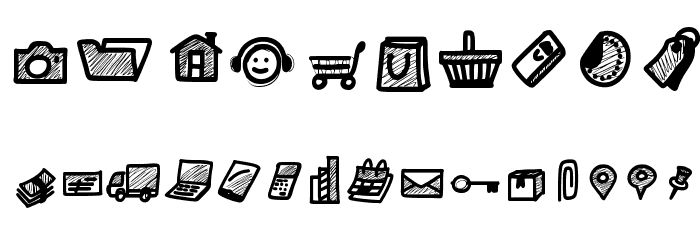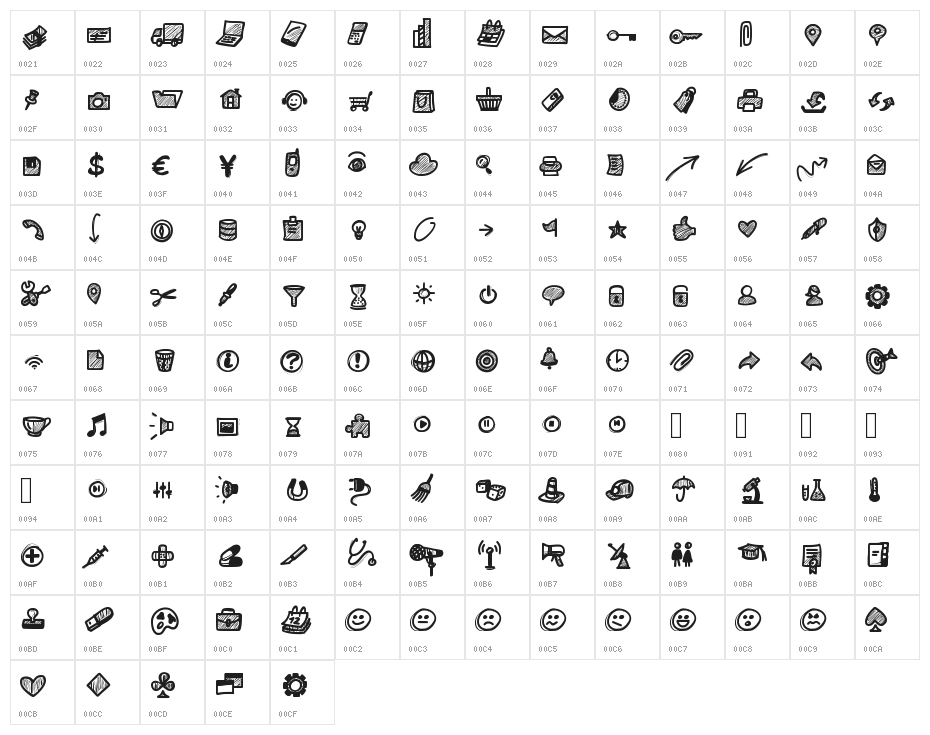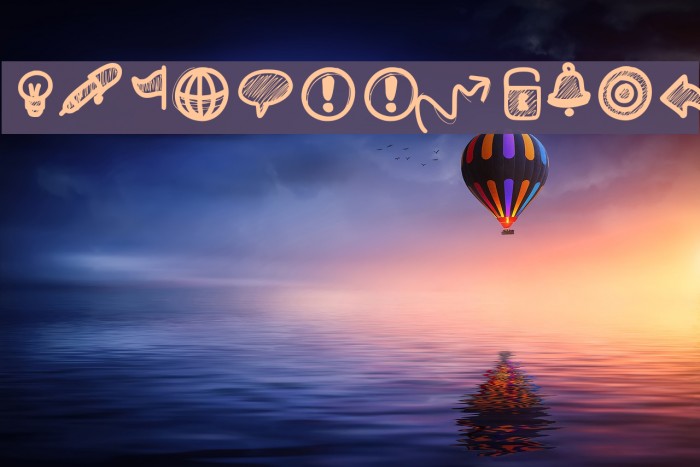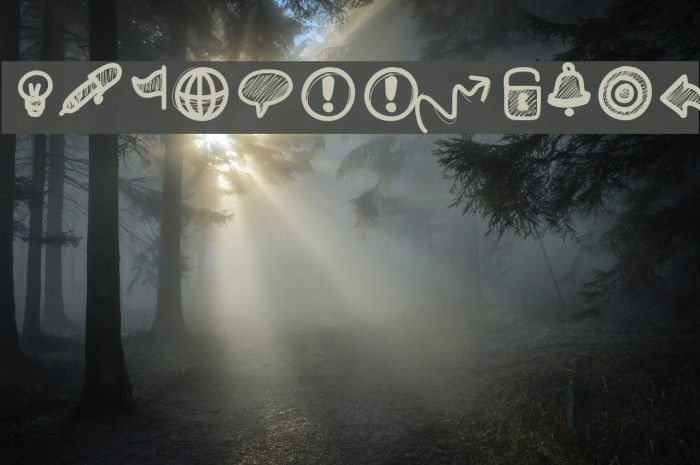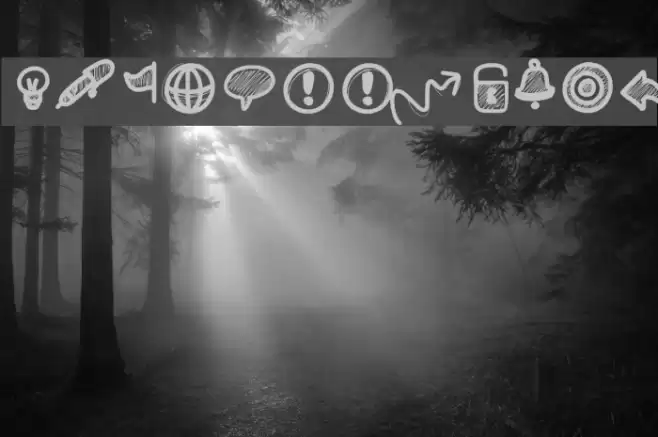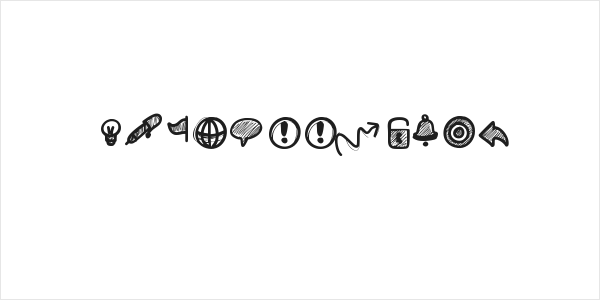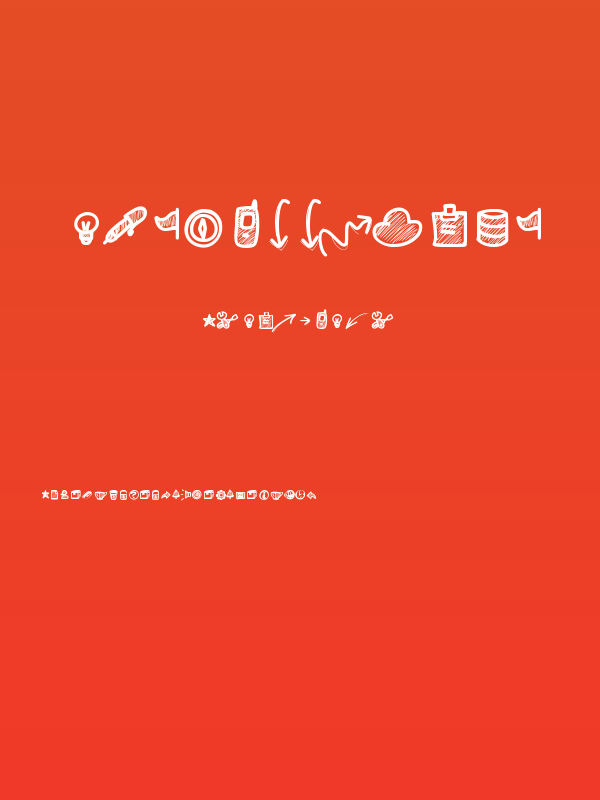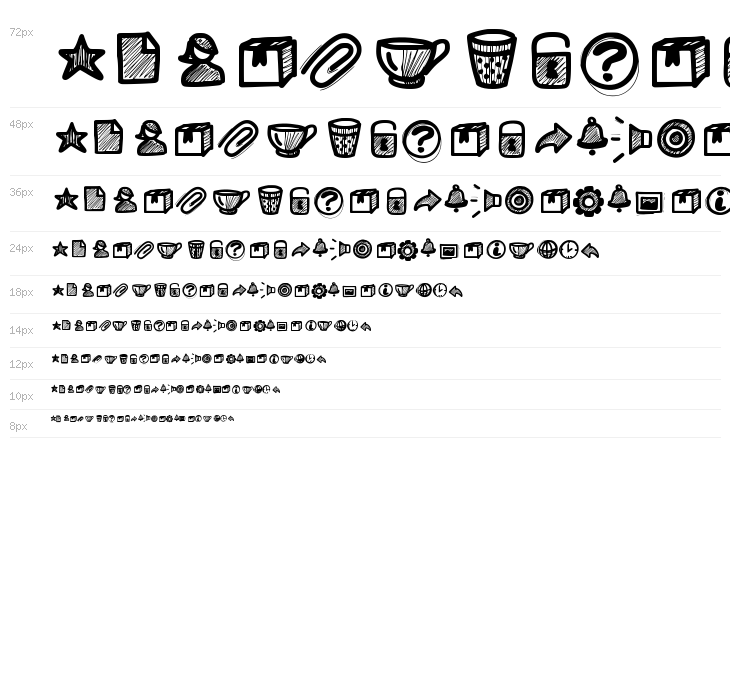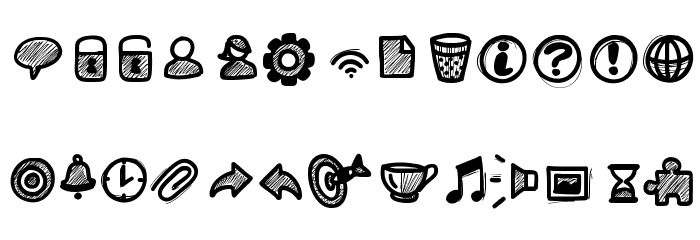
PWSmallIcons Font
PWSmallIcons Description
A playful, hand-drawn icon set with a sketchy, informal style, featuring a variety of common interface symbols such as arrows, devices, communication tools, and navigation elements. The icons have uneven, organic lines and a doodle-like appearance, giving them a casual and approachable feel.
| Overall Style | Decorative, Playful, Hand-drawn |
| Use Case | Icons, UI elements, Decorative graphics |
| Proposed Projects | Children's educational apps, creative websites, informal presentations, playful branding, social media graphics. |